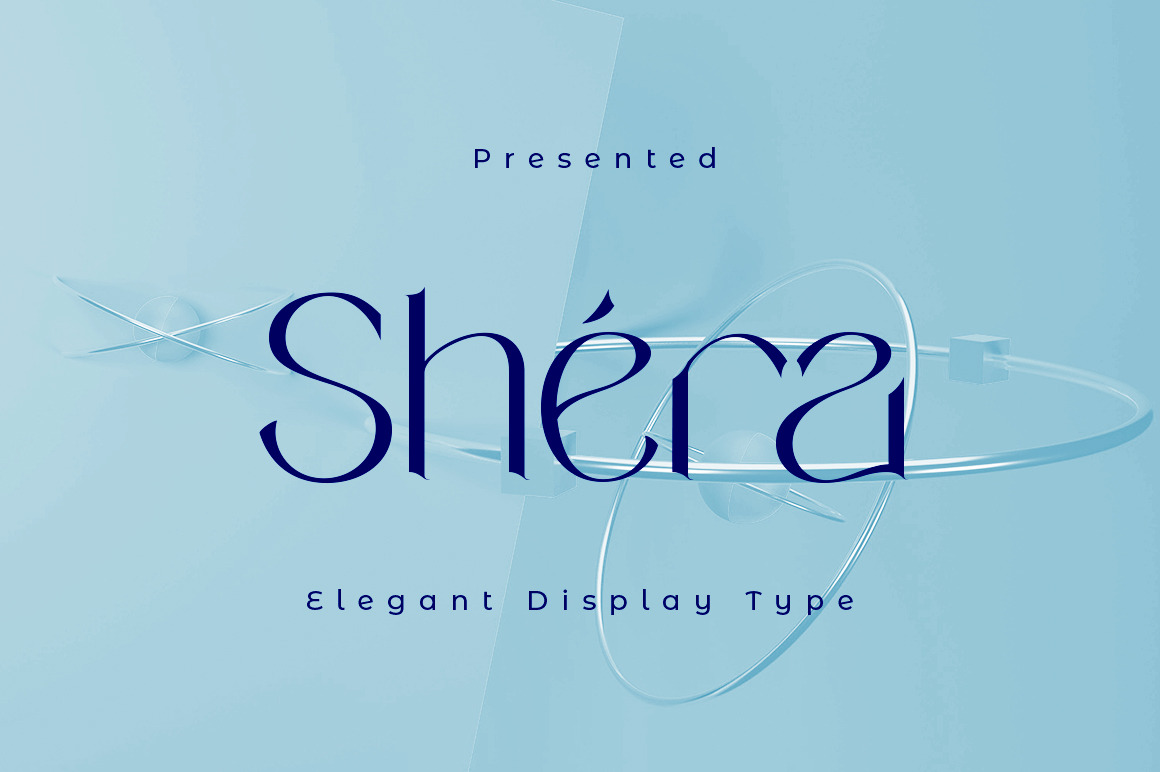
Shera display font
Shera display font are elegant and subtle with touch of luxury.
Shera Display represents a classy typeface best suitable for magazines, posters, advertising or any kind of fine and sensitive design.
The font includes a full set of uppercase and lowercase letters, diacritics, currency signs, numerals,
Unique, playful and versatile display font with ligatures and alternates to enrich your design work.